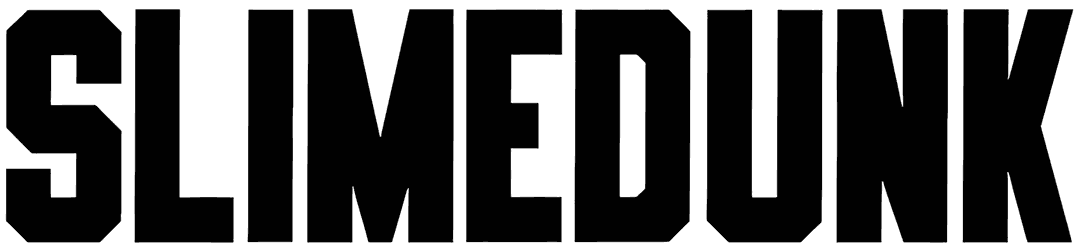
Slimedunk Font
Nothing is more tempting and practical than a sans serif font such as Slimedunk that all its characters are designed in four distinctive styles and widens the selection range of graphic designers.
This Industrial typeface has the real potential to bring a sense of modernity, comfort, dynamism, and precision to any kind of creative idea, including posters, business cards, gift cards, logos, and product packaging.